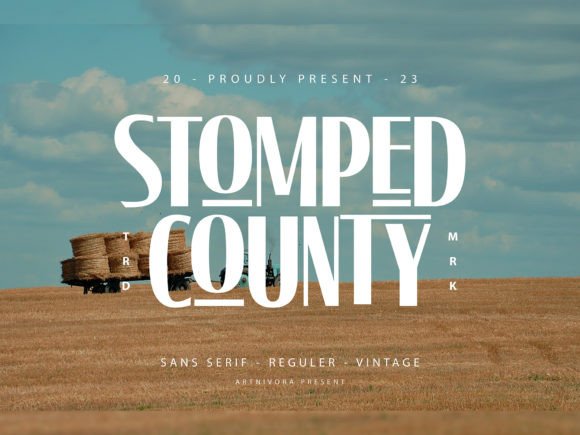
Step into the realm of typography and discover Stompedcounty, the font that exudes elegance and sophistication. This sans serif masterpiece, crafted by the ingenious artnivora.std, is not just a font; it's an artistic journey that captivates the senses and transforms your creative visions into breathtaking realities.
With its clean lines, crisp edges, and impeccable character set, Stompedcounty effortlessly elevates your designs, adding a touch of timeless charm and understated luxury. Its versatility knows no bounds, making it the perfect choice for a myriad of projects, from sleek logos and eye-catching headlines to captivating social media posts and polished brochures.
Imagine your words dancing across the page, imbued with a newfound grace and allure. Stompedcounty's carefully crafted letterforms create a visual symphony, guiding the reader's eyes through your text with effortless ease. Its subtle nuances and delicate curves add depth and dimension, transforming ordinary words into an artistic masterpiece.
Stompedcounty is more than just a font; it's an invitation to embark on a creative adventure. Whether you're a seasoned designer or just starting your typographic exploration, this font will unleash your imagination and fuel your creative passion. Its versatility and timeless appeal make it the perfect companion for any project, allowing you to express yourself with clarity and confidence.
As you delve into the world of Stompedcounty, you'll discover a font that is as versatile as it is captivating. Its clean and minimal aesthetic blends seamlessly with any design style, adding a touch of sophistication without overpowering your content. Whether you're crafting a modern website, designing a stylish brand identity, or creating engaging social media graphics, Stompedcounty will elevate your work and leave a lasting impression.
Don't settle for ordinary fonts that fail to capture the essence of your creative vision. Embrace the allure of Stompedcounty and watch as your designs transform into works of art. Its timeless beauty and unwavering elegance will set your projects apart, leaving your audience spellbound and eager for more.